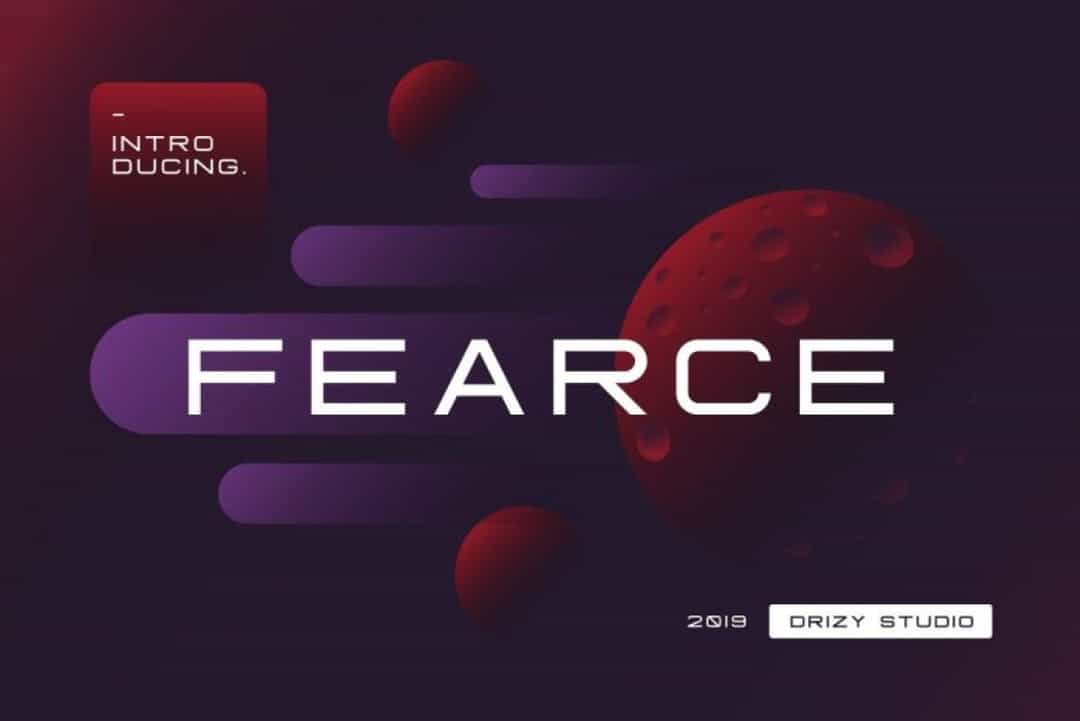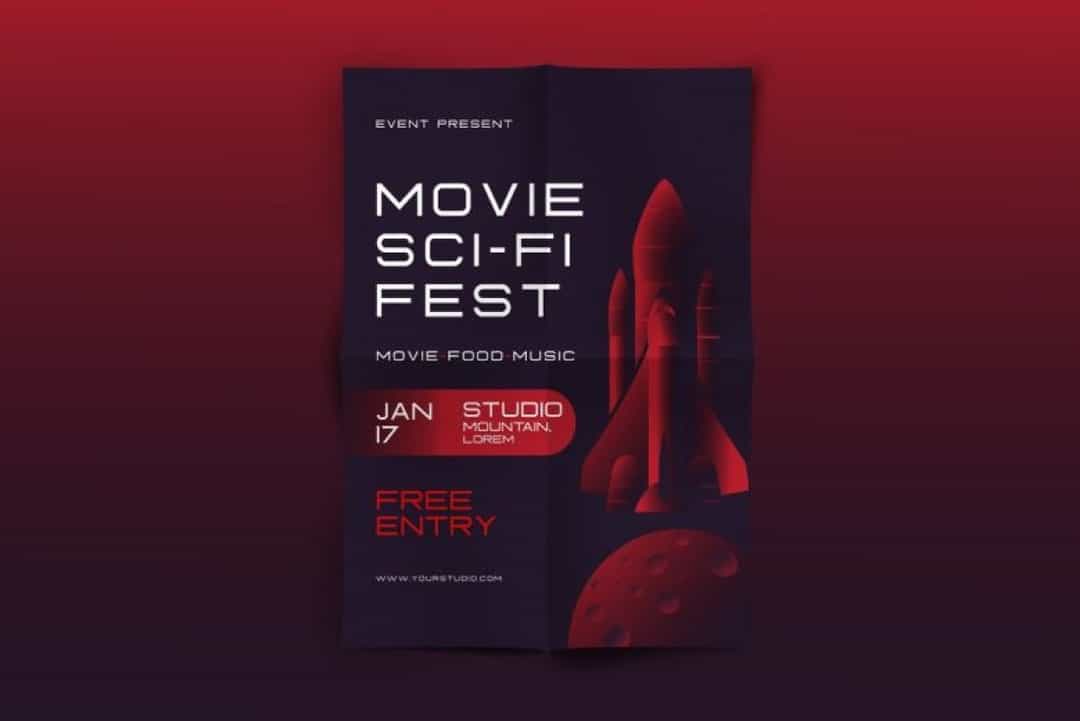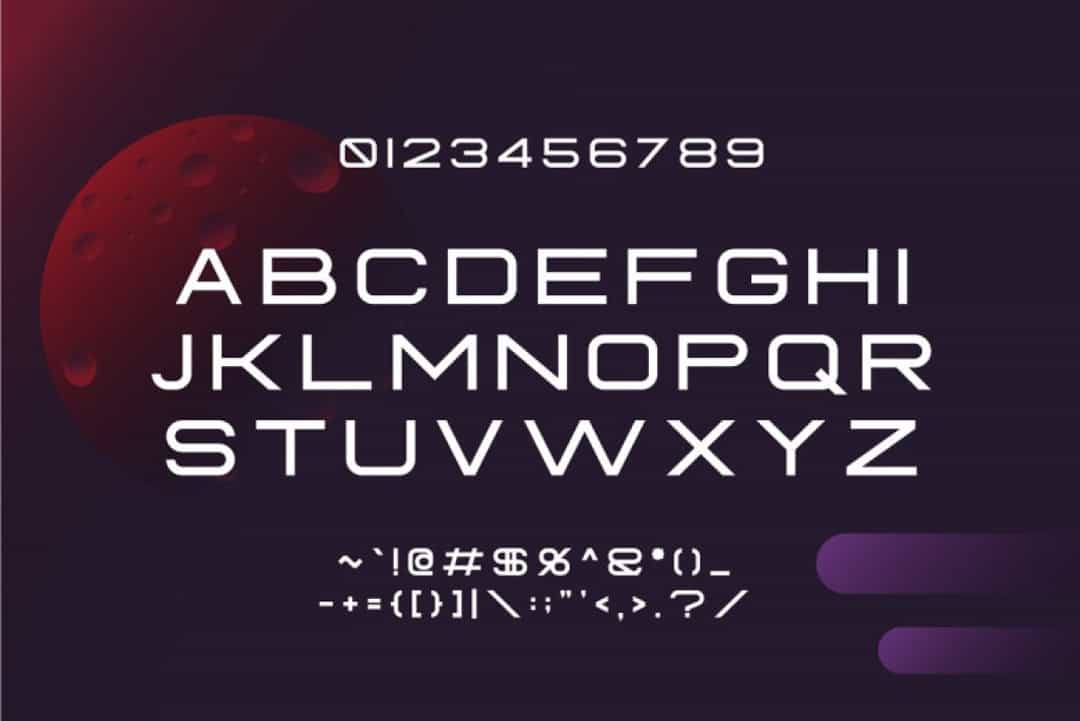
Discover Fearce Font, part of the Sans Serif Display collection—a versatile and unique font perfect for adding a personal touch to your projects. Download it for free and enjoy crafting designs with style, from invitations to social media posts. This font is available exclusively for personal use, giving you the freedom to create without limits. Unlock your creativity with Fearce Font today!
Fearce!, an all-caps sans serif font by Drizy!, is a modern and minimalist typeface featuring uppercase characters as well as punctuation marks and numbers for an all-caps serif typeface that works great as logos or names! Plus it pairs nicely with various fonts so it will fit right in to any design project you take on!